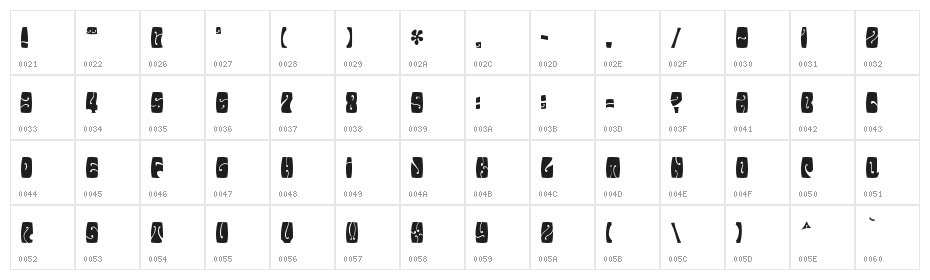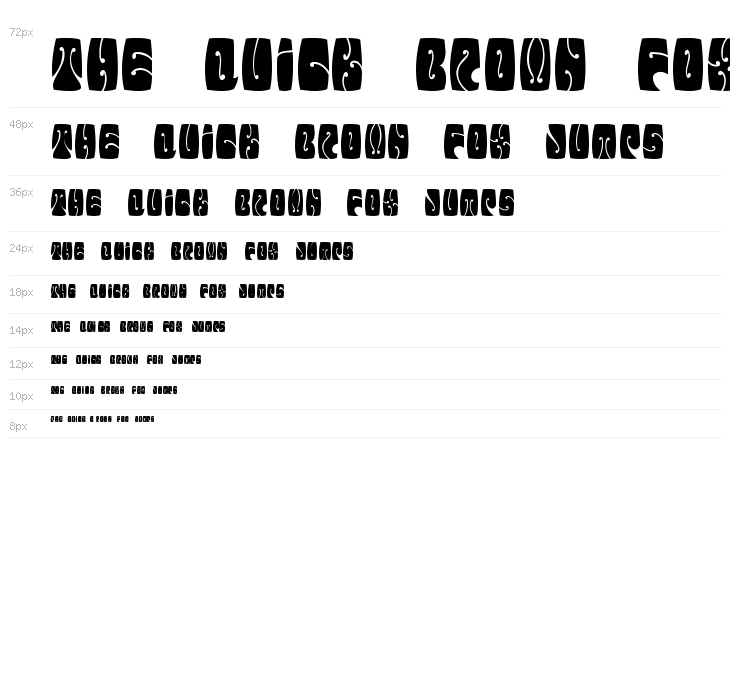
Electorate Boogaloo Font
Electorate Boogaloo Description
This font features a bold and playful design with a distinctly retro vibe. Each character is enclosed within a rounded square, creating a unique block-like appearance. The letters are adorned with whimsical swirls and curls, adding a decorative touch that enhances its playful nature. The font's thick strokes and high contrast make it highly legible, even at smaller sizes. Its quirky style is reminiscent of 1960s and 1970s design, making it perfect for projects that aim to evoke a sense of nostalgia or fun. The numbers and special characters maintain the same stylistic elements, ensuring consistency throughout.
| Proposed Projects | Ideal for retro-themed posters, playful branding, children's book covers, and creative advertising campaigns. |